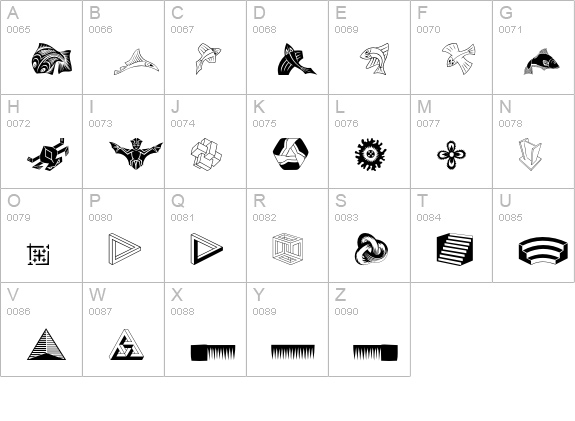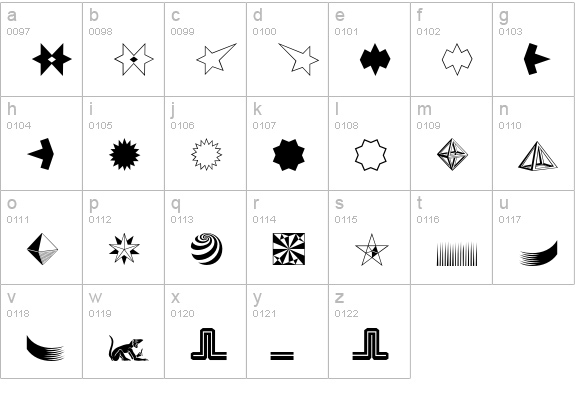
P22Escher-Extras is a captivating typeface that effortlessly captures the intricate and mind-bending artistry of the renowned artist M.C. Escher. With its mesmerizing geometric patterns and optical illusions, this font is sure to leave a lasting impression on any design project. The P22Escher-Extras font offers a wide range of additional characters, symbols, and ornaments that beautifully complement the main typeface. These extras include Escher's iconic tessellations, impossible constructions, and staircases that seem to defy gravity. Each element is meticulously crafted to showcase the incredible attention to detail that Escher is famous for. What sets P22Escher-Extras apart is that it is freely available to download at FontsMarket.com. This means that designers, artists, and enthusiasts alike can access this remarkable font without any cost. Whether you're working on a logo, poster, book cover, or any other creative project, P22Escher-Extras provides a unique and visually striking solution that will undoubtedly captivate your audience. Let your imagination run wild as you explore the endless possibilities that P22Escher-Extras offers. Unleash your creativity and incorporate the magic of Escher's art into your designs, creating an unforgettable visual experience. With its seamless integration and wide array of extras, this font is the perfect tool to elevate your projects and make them truly stand out. Download P22Escher-Extras for free at FontsMarket.com and embark on a journey of artistic exploration. Immerse yourself in the world of M.C. Escher and bring his extraordinary vision to life in your own designs. Whether you're a seasoned designer or just starting out, P22Escher-Extras is a must-have addition to your font library. Get ready to push the boundaries of typography and create something truly extraordinary with this remarkable typeface.